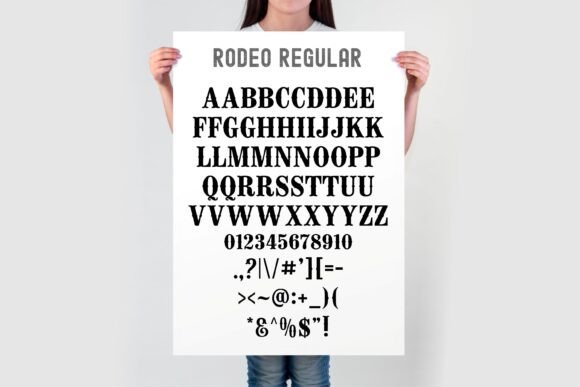
Rodeo Bundle Font
Bring the Wild West to life with the “Rodeo Western Font Bundle”! This versatile bundle features 5 unique styles: Regular, Bold, Line, Outline, and Duo, perfect for adding a rustic, cowboy feel to any project. Whether you’re designing logos, t-shirts, signage, or crafting with Cricut and Silhouette machines, this font set provides endless possibilities for creating that timeless Western look.
The “Rodeo Western Font Bundle” offers a bold, rugged aesthetic with a range of styles to suit different design needs, from standout bold headlines to more subtle, outlined accents. With SVG cut files included, this bundle is perfect for both digital and crafting projects.